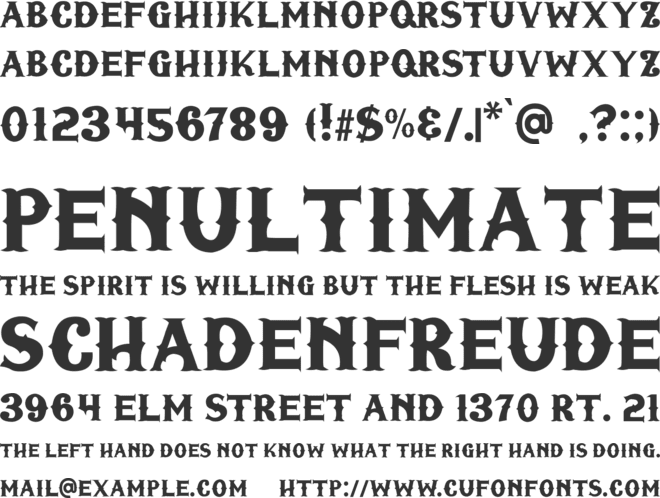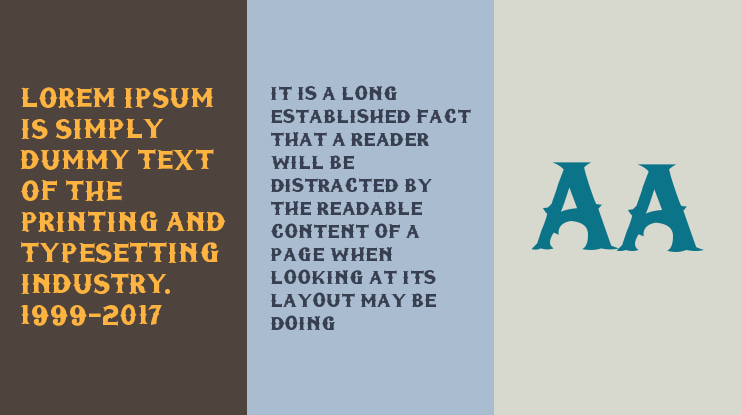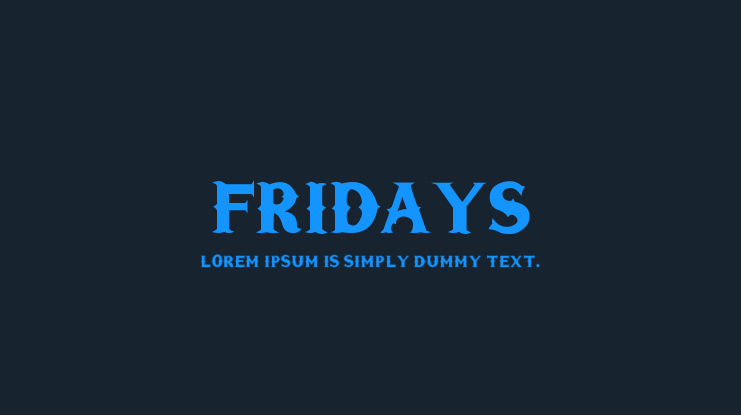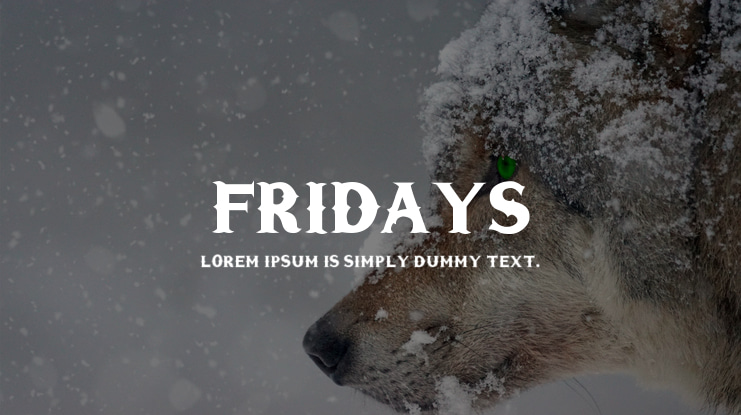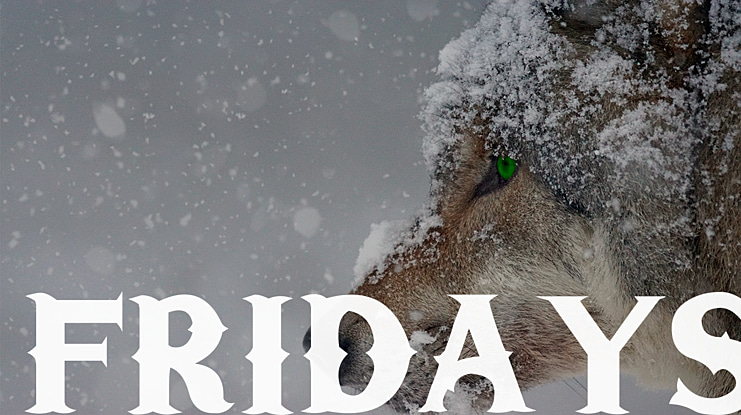
Fridays Font
Many moons ago the inspiration for this font hit me while i was feasting on a glorious rack of ribs. It's undergone a few changes since 2000 (other than the name) but all positive. Fridays now
features a full character set with basic punctuation, improved drawing, and kerning added. Lowercase letters are the same as uppercase. The underscore will get you a festive little stripe. Press
its a few times for large one.
Fridays font preview